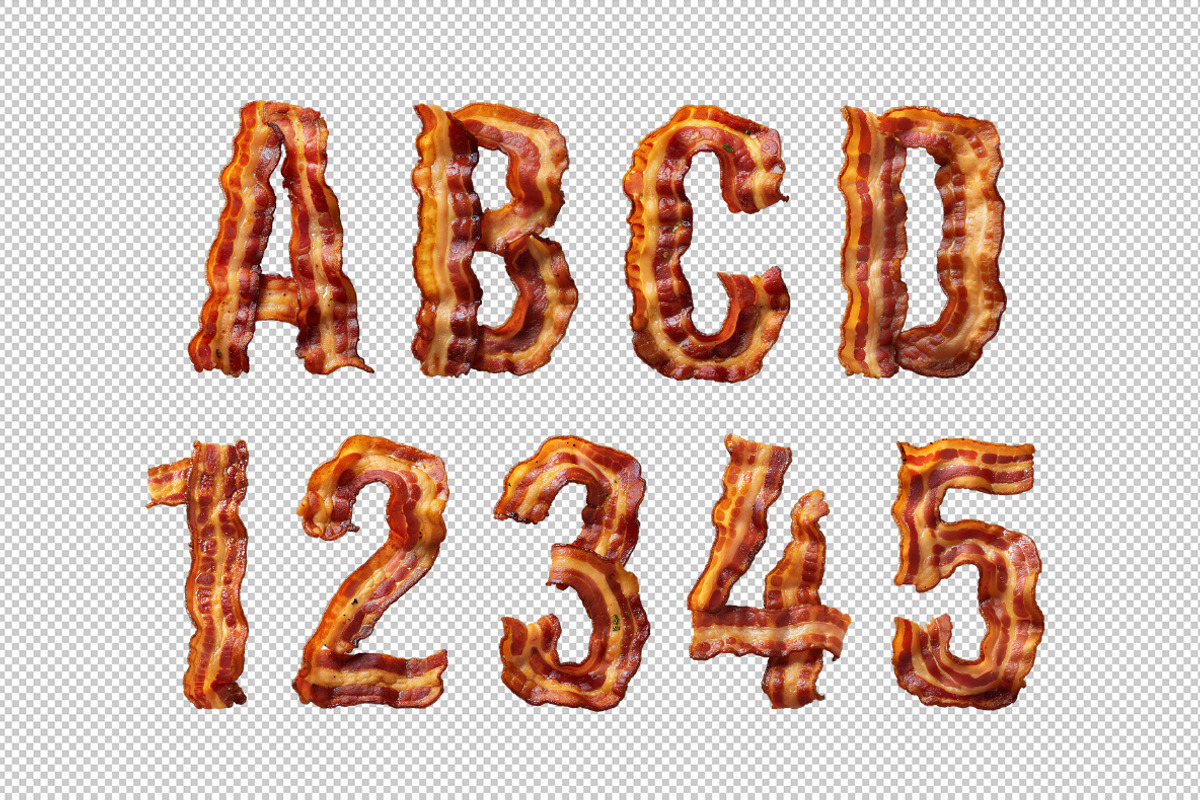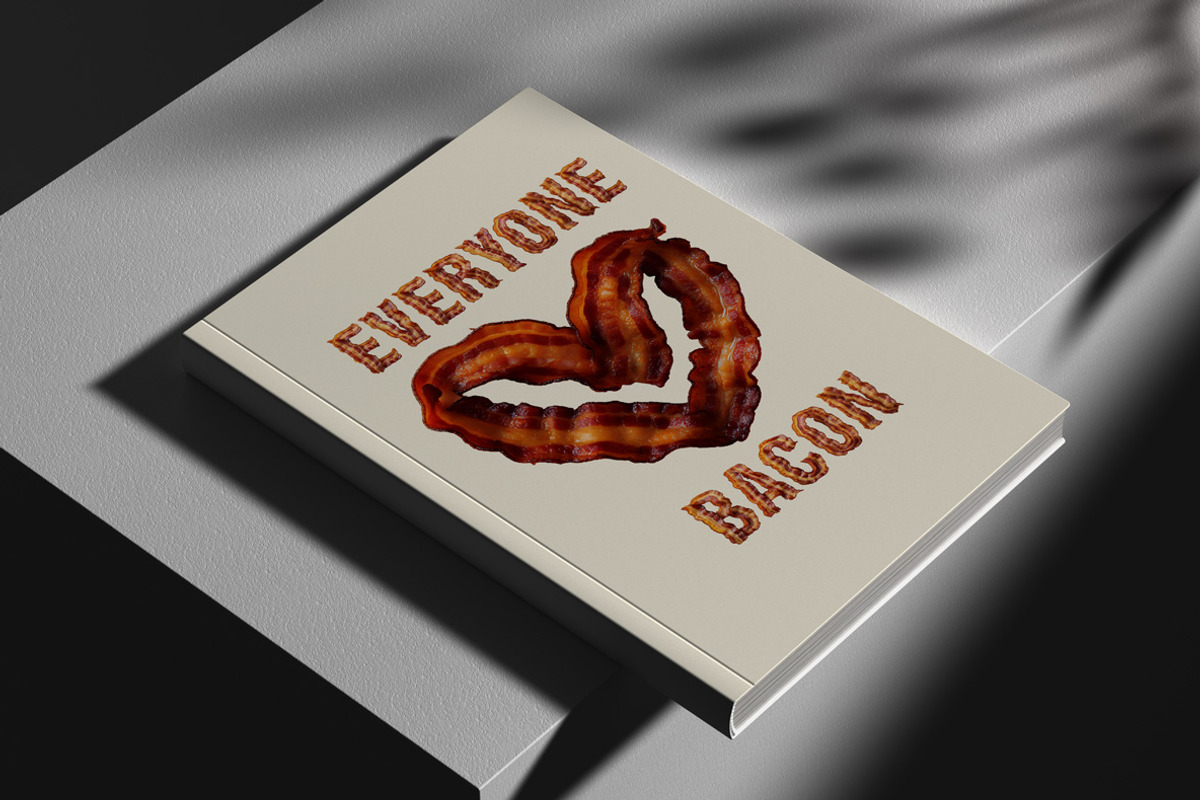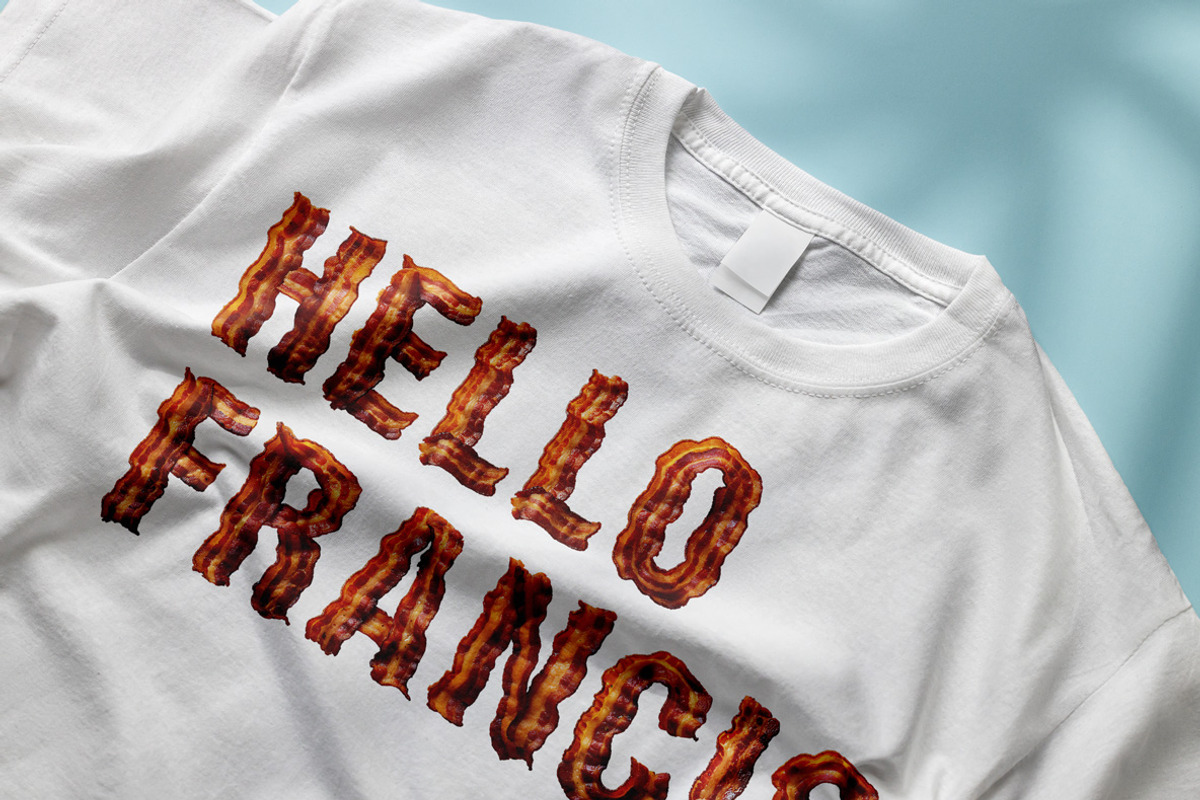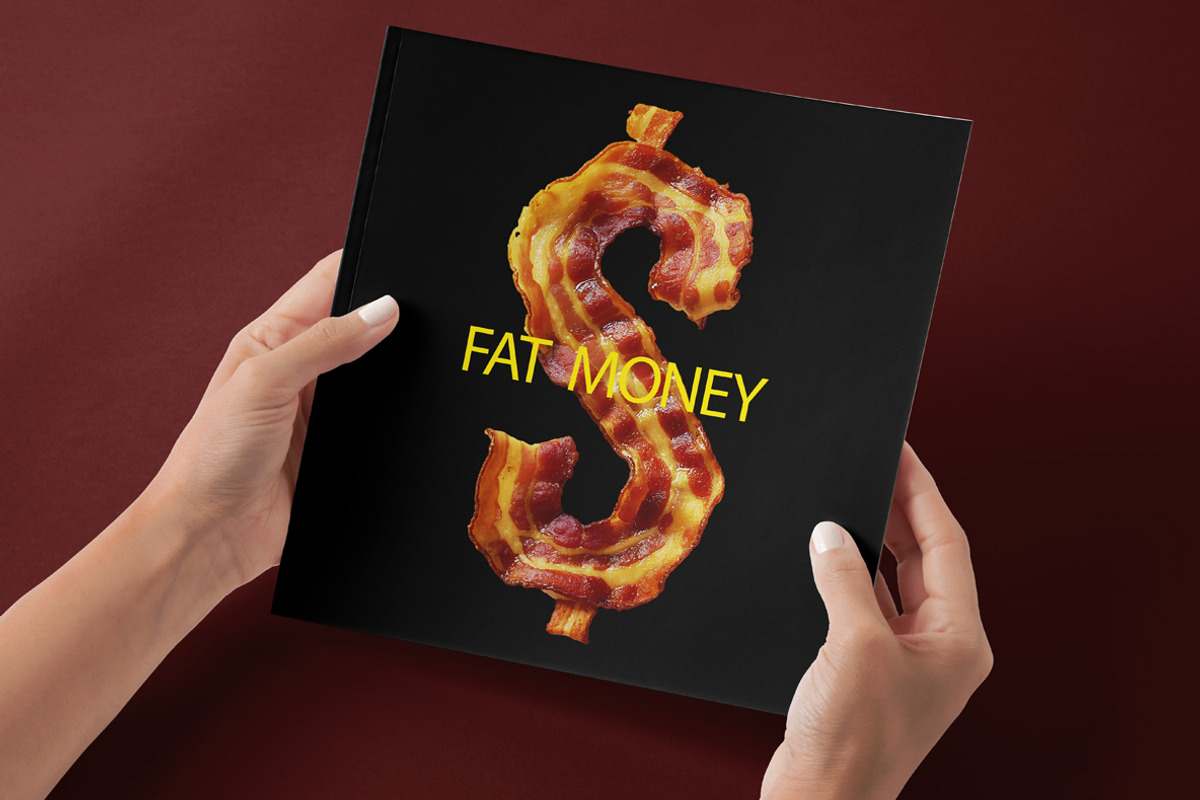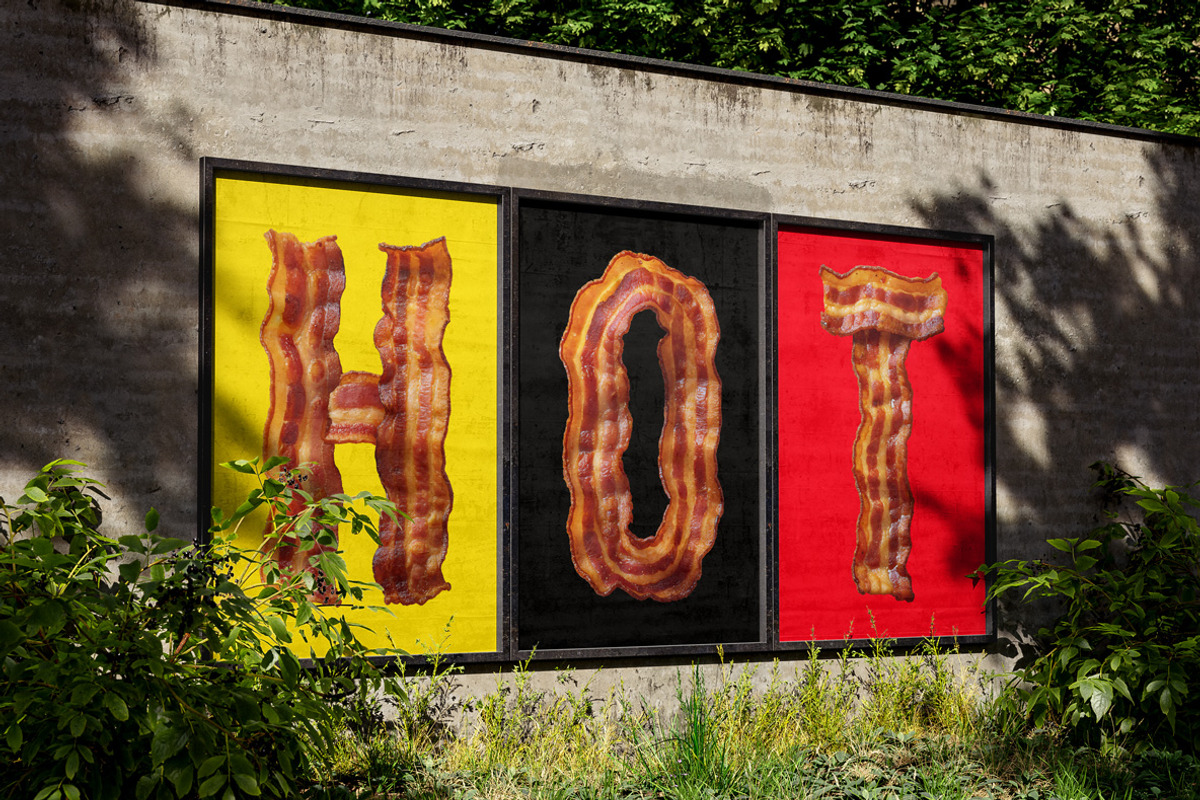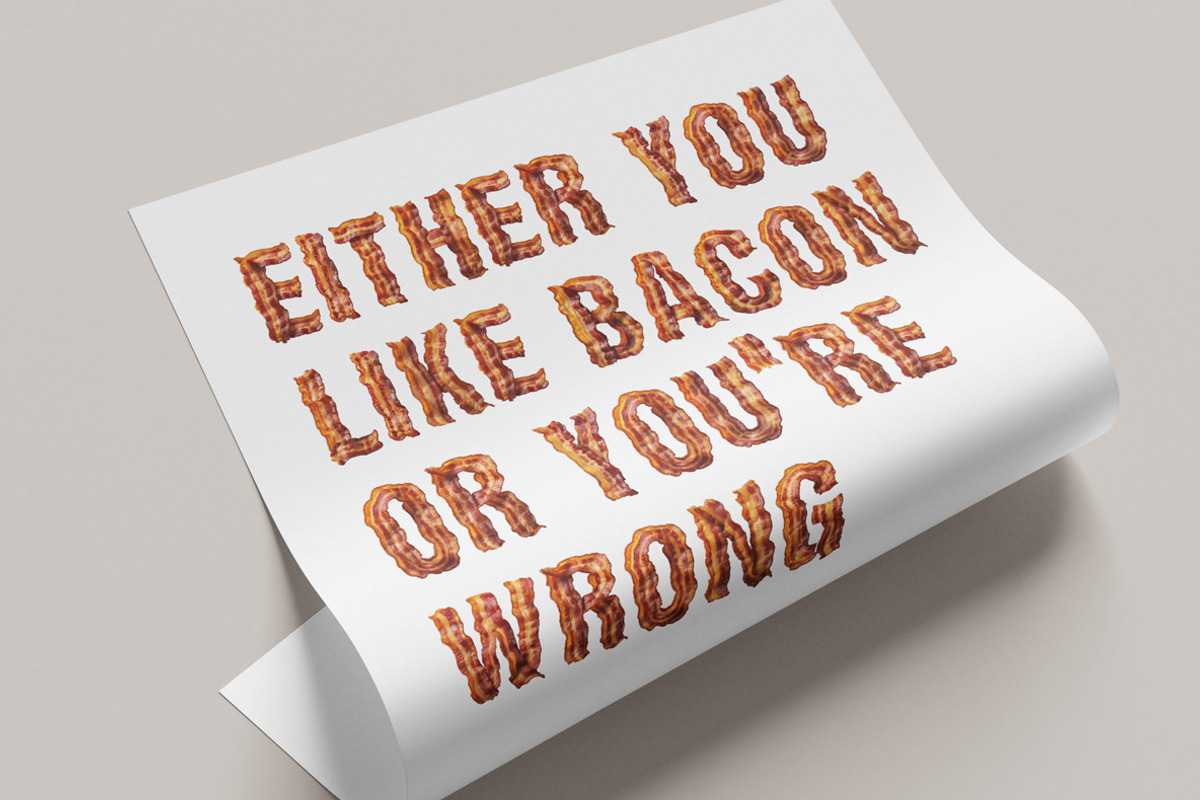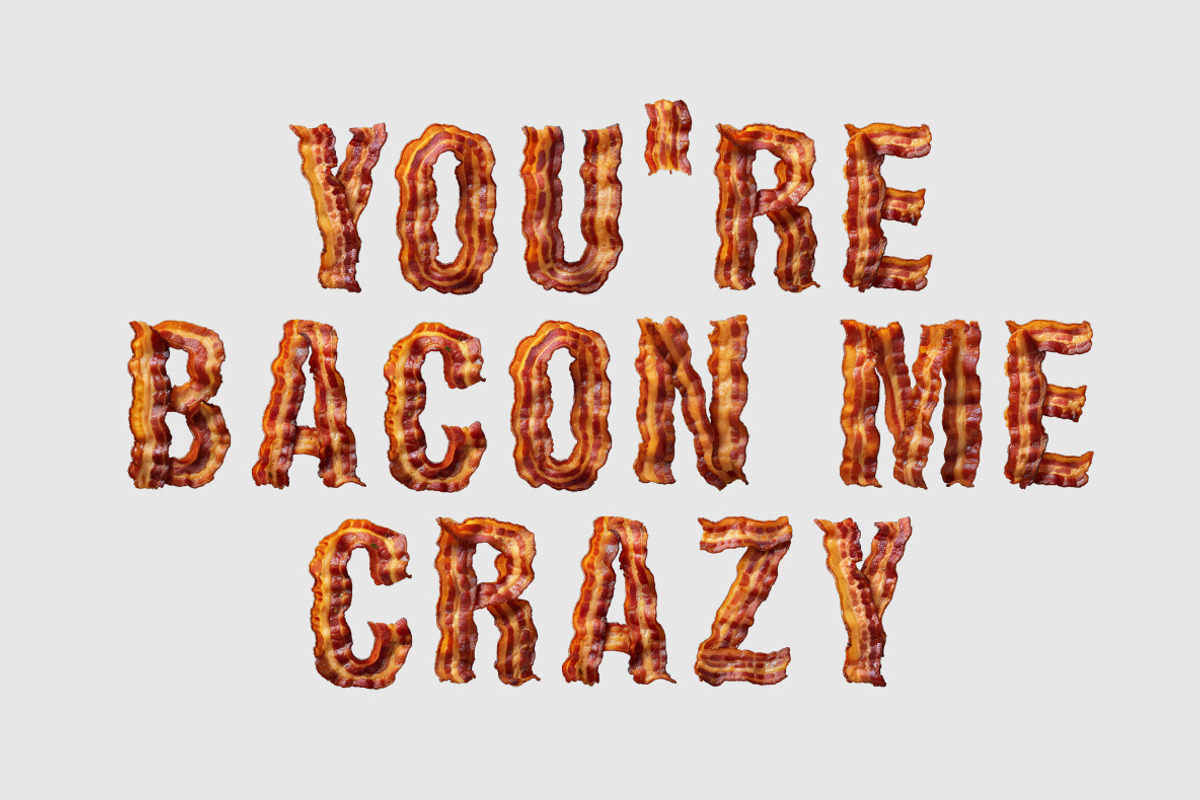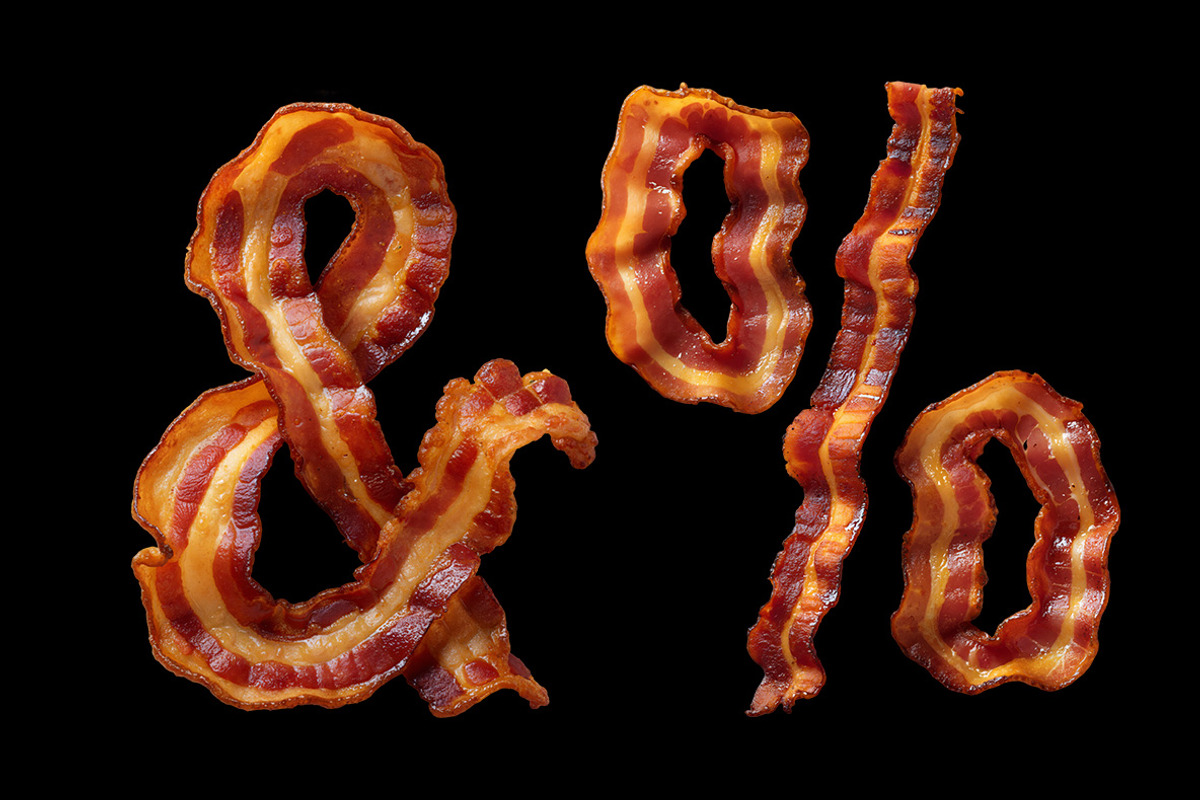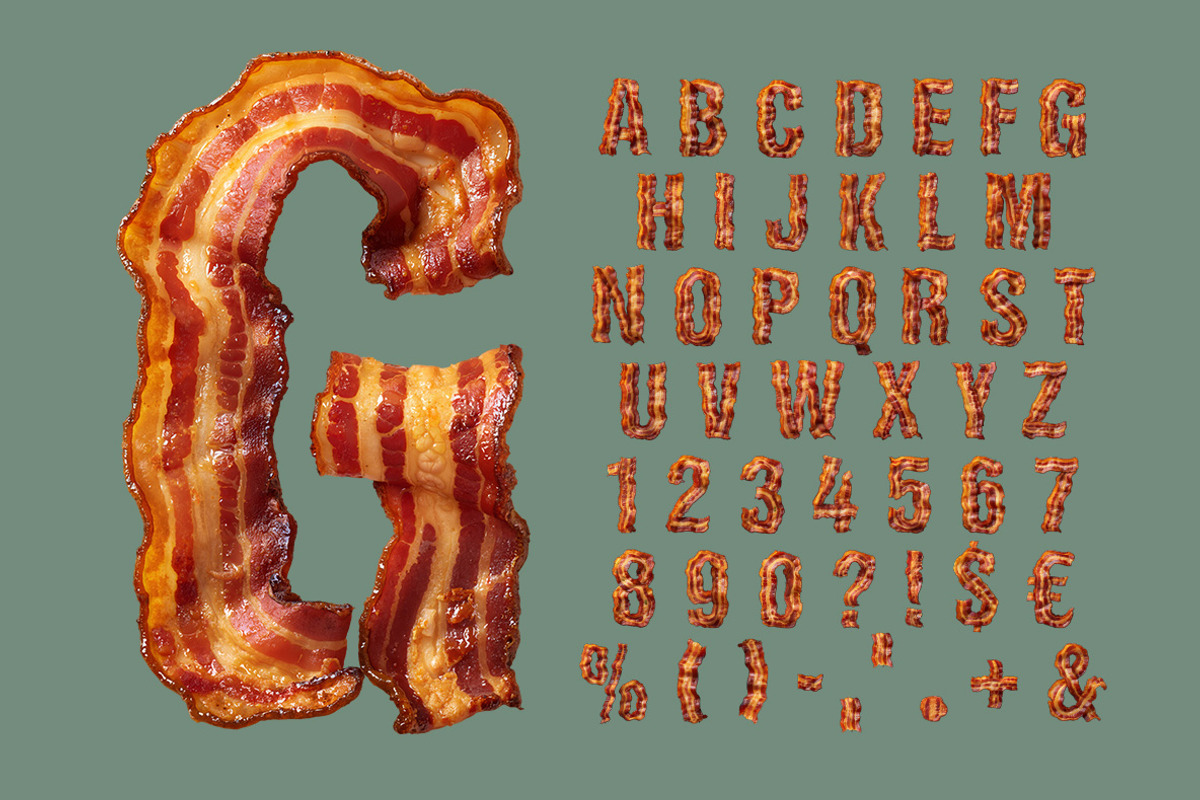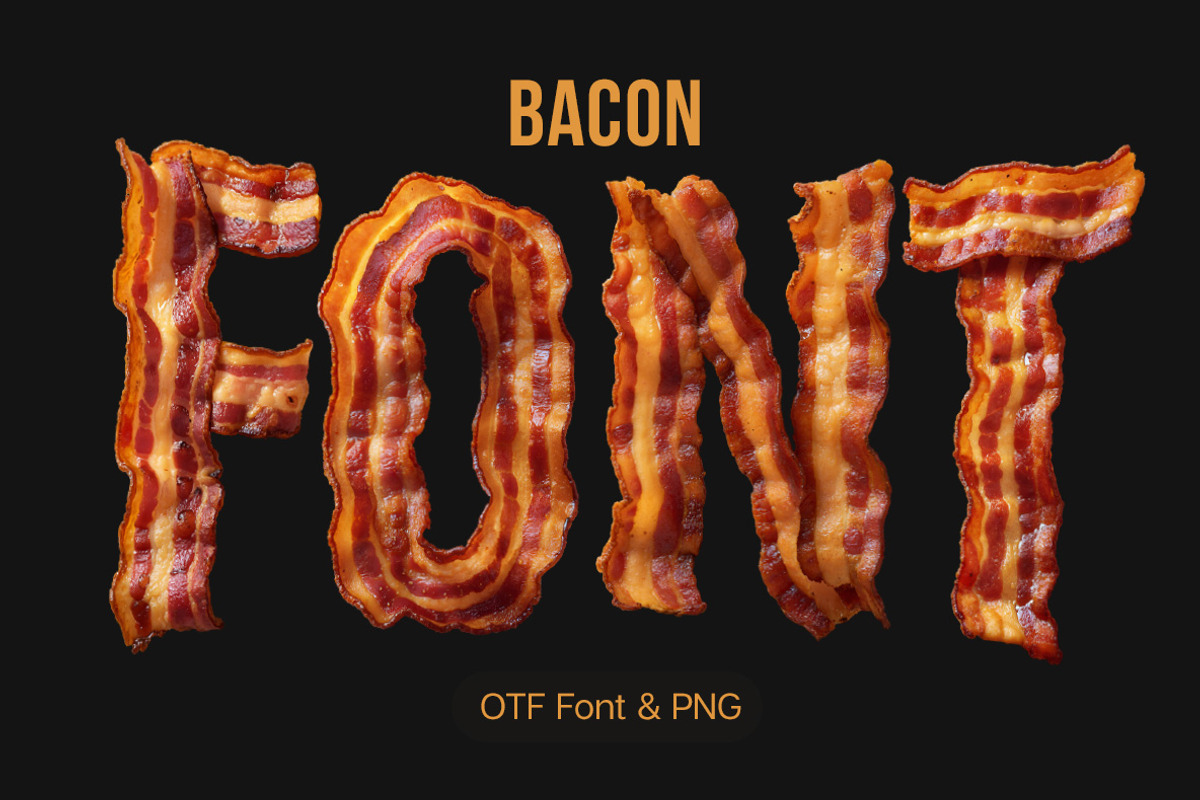
Bacon Font
Bacon Font sizzles with crispy, fried perfection! Each letter is crafted from juicy strips of bacon, featuring a deliciously fat and crispy texture. Perfect for food lovers, playful designs, and anyone craving a unique, mouth-watering font. Add a dash of savory flair to your projects with this appetizingly bold typeface!
A high definition OpenType Font. Contains uppercase characters, numerals and basic punctuation. (Draw height roughly 800 pixels). All letters and glyphs that comprises this font you can see on the preview.